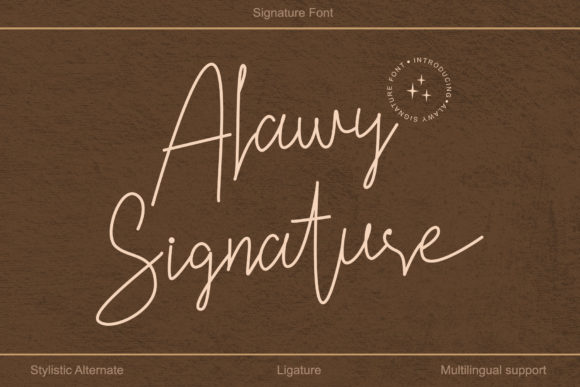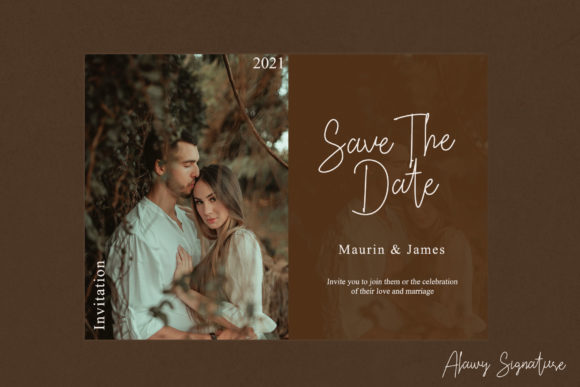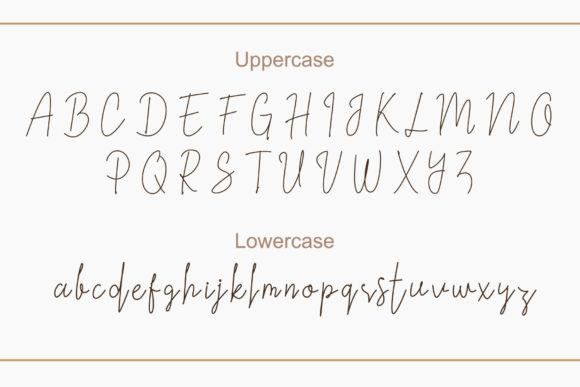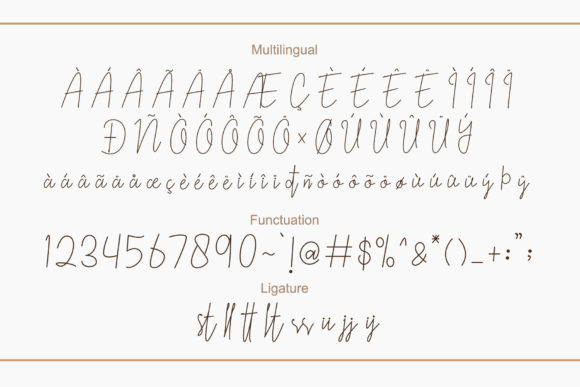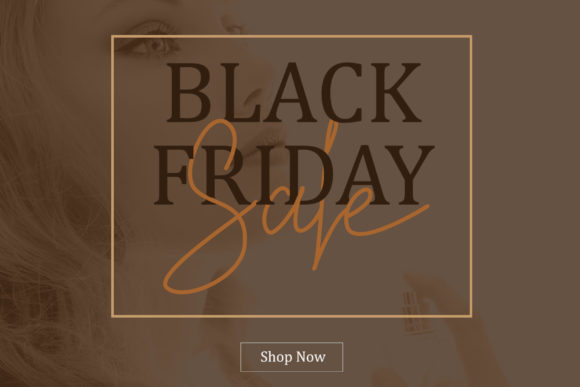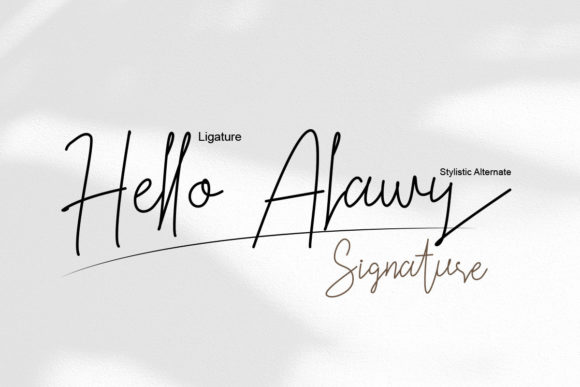
About Alawy Signature Font
Alawy Signature is a flowing and graceful script font. Fall for its ravishing style and use it to create gorgeous designs. This font is PUA encoded which means you can access all of the amazing glyphs and ligatures with ease!